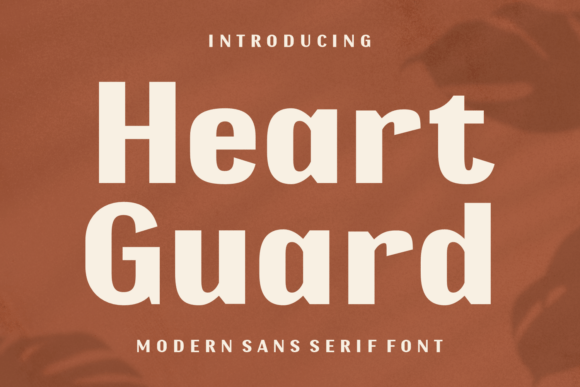
Introducing Heart Guard Font: A Bold Modern Sans Serif with a Strong Personality
In the world of typography, fonts play a crucial role in conveying messages, expressing individuality, and creating a lasting impression. Among the numerous fonts available, Heart Guard Font stands out as a bold modern sans serif with a strong personality and charming character. Its unique features make it an ideal choice for various design applications, from headlines and branding to packaging and digital products.
The Distinctive Features of Heart Guard Font
Heart Guard Font boasts slightly quirky cuts and wide proportions, setting it apart from other fonts while maintaining high legibility. This distinctive combination of geometric precision and playful edges makes it versatile for many modern design applications. The font’s bold and confident appearance makes it perfect for headlines, branding, and bold packaging, while its charming character adds a touch of creativity to any design.
Key Features of Heart Guard Font:
- Bold and Modern Design: Heart Guard Font features a bold and modern sans-serif design that commands attention.
- Strong Personality: The font’s unique character and quirky cuts give it a strong personality that sets it apart from other fonts.
- High Legibility: Despite its bold design, Heart Guard Font remains highly legible, making it suitable for various design applications.
- Versatile: The font’s balance of geometric precision and playful edges makes it versatile for many modern design applications.
Use Cases for Heart Guard Font
Heart Guard Font is suitable for a wide range of design applications, including:
Editorial Layouts:
Heart Guard Font is perfect for editorial layouts that require a bold and confident font. Its high legibility and unique character make it an excellent choice for articles, magazines, and newspapers.
Bold Statements:
When you want to make a bold statement, Heart Guard Font is the ideal choice. Its strong personality and charming character ensure that your message gets noticed.
Startup Branding:
Startups can benefit from Heart Guard Font’s unique character and bold design. The font helps create a lasting impression and sets your brand apart from the competition.
Digital Products:
Digital products that want to express individuality with structure can benefit from Heart Guard Font. Its versatility and modern design make it suitable for various digital applications, including websites, apps, and software.
The Benefits of Using Heart Guard Font
Using Heart Guard Font offers several benefits, including:
Improved Readability:
Heart Guard Font’s high legibility ensures that your message gets across clearly, even in bold and confident designs.
Enhanced Creativity:
The font’s unique character and quirky cuts add a touch of creativity to any design, making it perfect for designers who want to express individuality.
Versatility:
Heart Guard Font’s balance of geometric precision and playful edges makes it versatile for many modern design applications.
Professionalism:
The font’s bold and modern design gives your design a professional look, making it suitable for various industries and applications.
Tips for Using Heart Guard Font Effectively
To get the most out of Heart Guard Font, follow these tips:
Use it Boldly:
Heart Guard Font is designed to be bold and confident. Use it in large sizes to make a lasting impression.
Pair it with Simple Fonts:
Pair Heart Guard Font with simple fonts to create a striking contrast and add visual interest to your design.
Experiment with Colors:
Heart Guard Font looks great in various colors. Experiment with different colors to find the one that best suits your design.
Pay Attention to Kerning:
Pay attention to kerning to ensure that your text looks professional and visually appealing.
Heart Guard Font is a bold modern sans serif with a strong personality and charming character. Its unique features make it an ideal choice for various design applications, from headlines and branding to packaging and digital products. With its high legibility, versatility, and professional look, Heart Guard Font is a great addition to any designer’s font collection.